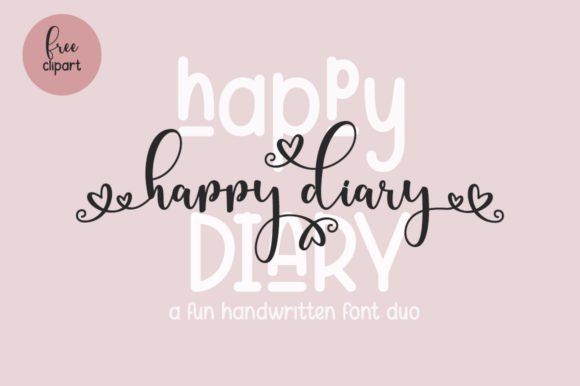
Unlock the Secrets of Happiness with the Happy Diary Font
Have you ever sat down with a blank page and a blank mind, struggling to find the perfect font to bring your design to life? I know I have. But what if I told you that I’ve stumbled upon a font that’s sure to put a smile on your face and make your designs shine? Enter the Happy Diary Font, a lovely, chic, and delicate duo font that’s as versatile as it is beautiful.
This gorgeous font is more than just a pretty face – it’s a game-changer for designers looking to add a touch of elegance and whimsy to their projects. With its PUA encoded features, you’ll have access to all the glyphs and swashes you need to create truly spectacular designs. Whether you’re working on a wedding invitation, a blog post, or a social media graphic, the Happy Diary Font is the perfect tool to help you express your creativity and bring your vision to life.
Key Features of Happy Diary Font
- Font Family: Happy Diary Font is a beautiful and elegant script font, ideal for creating a happy and inviting atmosphere in designs.
- Unique Characteristics: Features a playful and whimsical feel, with subtle variations in letterforms and connections between letters, giving it a unique and personal touch.
Happy Diary Font Review
Overall, I think the Happy Diary Font is a lovely addition to any design project. ✨ The script style is perfect for creating a whimsical and playful atmosphere, and the cursive connections between letters add a touch of elegance.
Here are some of the things that I think work well:
- ✨ Beautifully designed script style that adds a touch of whimsy to any design
- ✨ Perfect for creating a playful and elegant atmosphere
- ⚠️ Limited font size options, which can make it difficult to read at smaller sizes
- ⚠️ Not ideal for use in bold or large font sizes, as the connections between letters can become messy
Overall, I would recommend the Happy Diary Font for projects that require a playful and elegant touch. While it has its limitations, I think it’s a great choice for designers who want to add a touch of whimsy to their designs.
Tips for Getting the Most Out of Happy Diary Font
Use the Happy Diary font for creating whimsical and playful designs. It’s perfect for:
– Blog posts
– Children’s book illustrations
– Party invitations
– Custom stationery
The Happy Diary font is ideal for designs that require a touch of warmth and friendliness. It’s perfect for:
– Creating a cohesive brand identity
– Adding a personal touch to designs
– Making complex information more engaging
– Creating eye-catching headlines
Alternatives to Happy Diary Font
Great Vibes Font is a modern, cursive script font that is perfect for creating a whimsical and playful atmosphere. It is ideal for use in titles, headings, and quotes, and is especially suited for designers who want to add a touch of elegance to their designs. Compared to Happy Diary Font, Great Vibes Font has a more refined and sophisticated look, making it a great choice for designers who want to create a high-end feel.
Pacifico Font is a beautiful, handwritten font that is perfect for creating a relaxed and casual atmosphere. It is ideal for use in titles, headings, and body text, and is especially suited for designers who want to add a touch of warmth and personality to their designs. Compared to Happy Diary Font, Pacifico Font has a more laid-back and informal look, making it a great choice for designers who want to create a friendly and approachable feel.
Q: Can I customize the Happy Diary Font for my specific design needs?
Yes, the Happy Diary Font is a highly customizable OpenType font, allowing you to access advanced typographic features through your design application. You can use the font’s built-in features, such as ligatures, swashes, and stylistic sets, to create unique and personalized designs.